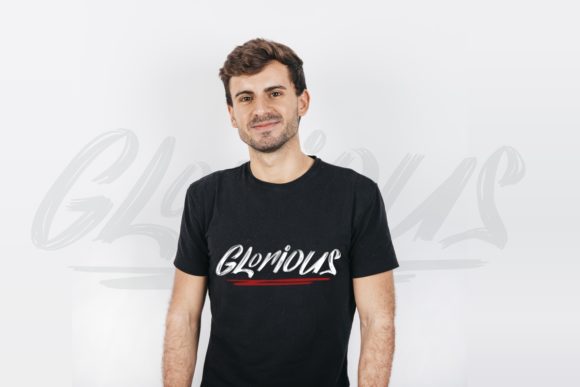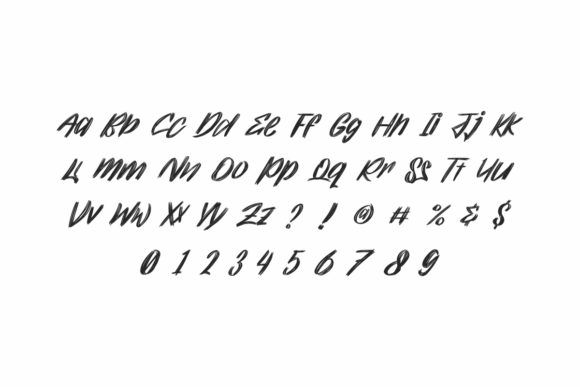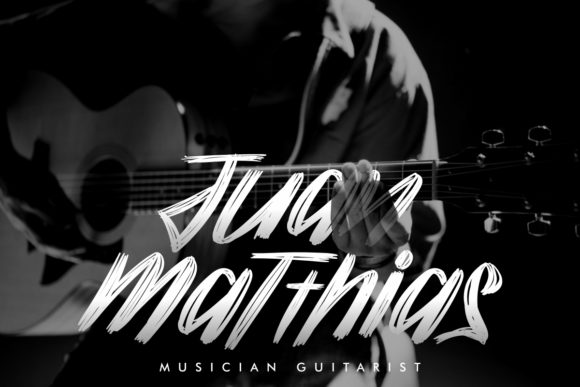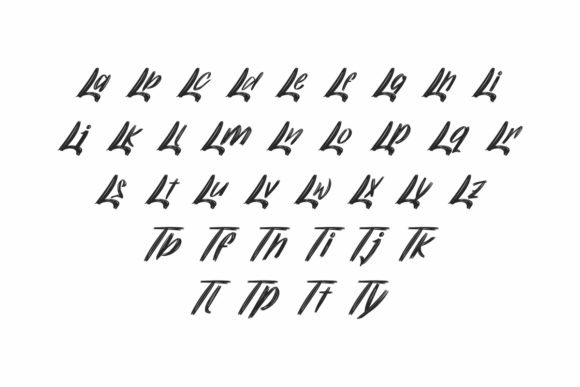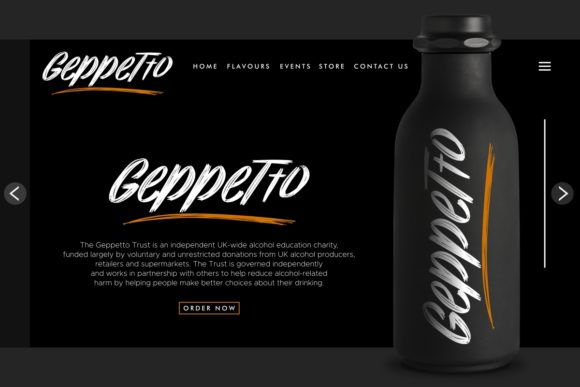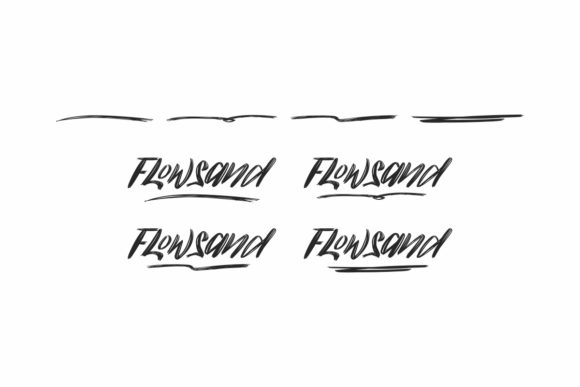
Introducing Flowsand Font: The Fun Brush Style Handwritten Font for Creative Projects
Are you looking for a unique and creative font to elevate your design projects? Look no further than Flowsand Font, a fun brush style handwritten font that’s perfect for a wide range of applications. In this article, we’ll explore the features and benefits of Flowsand Font, and show you how it can be used to take your branding, logos, stationery, and more to the next level.
What is Flowsand Font?
Flowsand Font is a beautifully crafted brush style handwritten font that’s designed to add a touch of personality and whimsy to your design projects. With its flowing strokes and elegant lines, this font is perfect for creating eye-catching headlines, titles, and text that will capture the attention of your audience.
What Can I Use Flowsand Font For?
Flowsand Font is incredibly versatile and can be used for a wide range of design projects, including:
- Branding: Create a unique and memorable brand identity with Flowsand Font, perfect for logos, business cards, and letterheads.
- Stationery: Add a touch of elegance and sophistication to your stationery with Flowsand Font, great for invitations, greeting cards, and more.
- Signage: Make your signage stand out with Flowsand Font, perfect for menus, posters, and billboards.
- Flyers and Brochures: Create eye-catching flyers and brochures with Flowsand Font, great for promoting products, services, or events.
- Business Cards: Make a lasting impression with Flowsand Font on your business cards, perfect for networking and marketing.
What Makes Flowsand Font Special?
Flowsand Font is more than just a beautiful font – it also comes with some amazing features that make it easy to use and customize. Here are just a few of the things that make Flowsand Font special:
- PUA Encoded: Flowsand Font is PUA (Private Use Area) encoded, which means that you can access all of the glyphs and swashes with ease. This makes it easy to customize your text and add unique touches to your designs.
- Handwritten Style: Flowsand Font has a beautifully crafted handwritten style that’s perfect for creating a personal and friendly feel in your designs.
- Brush Style: The brush style of Flowsand Font gives it a unique and artistic feel that’s perfect for creating eye-catching designs.
- Experiment with Different Sizes: Flowsand Font looks great in a wide range of sizes, from small and delicate to large and bold. Experiment with different sizes to find the one that works best for your design.
- Play with Colors: Flowsand Font looks great in a wide range of colors, from bright and bold to soft and pastel. Experiment with different colors to find the one that works best for your design.
- Add Swashes and Glyphs: With its PUA encoding, Flowsand Font makes it easy to add unique swashes and glyphs to your text. Experiment with different swashes and glyphs to add a personal touch to your designs.